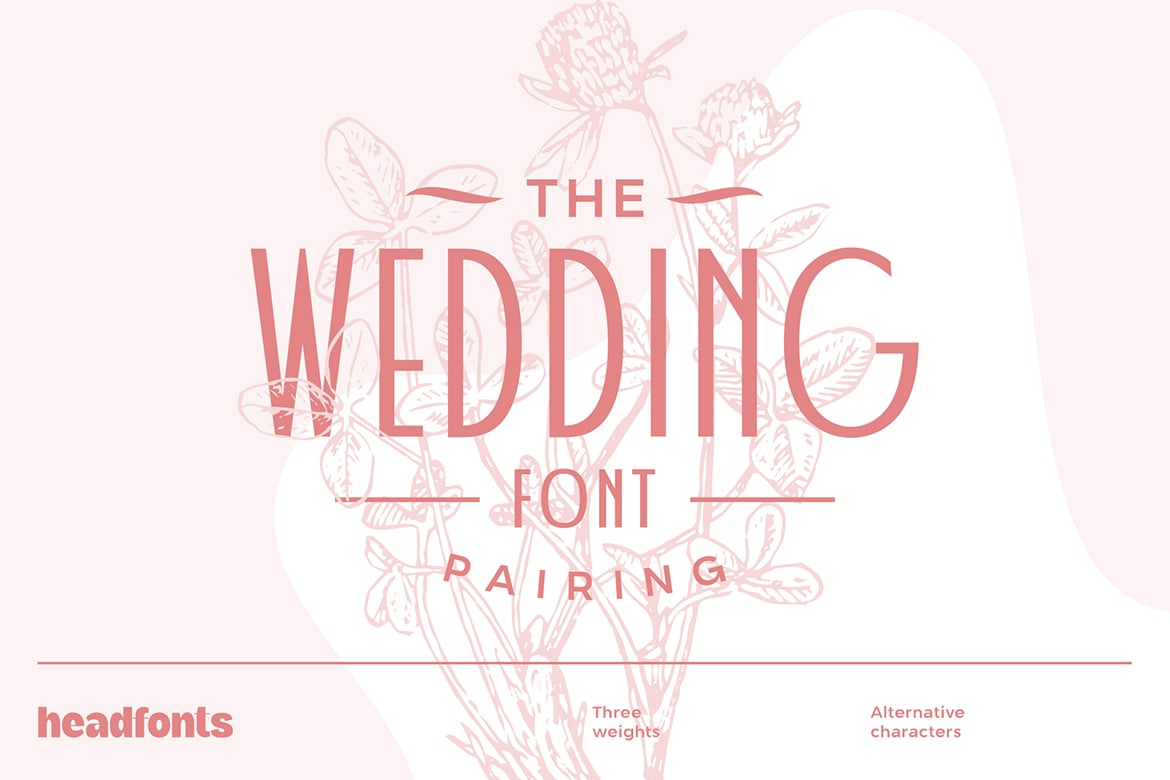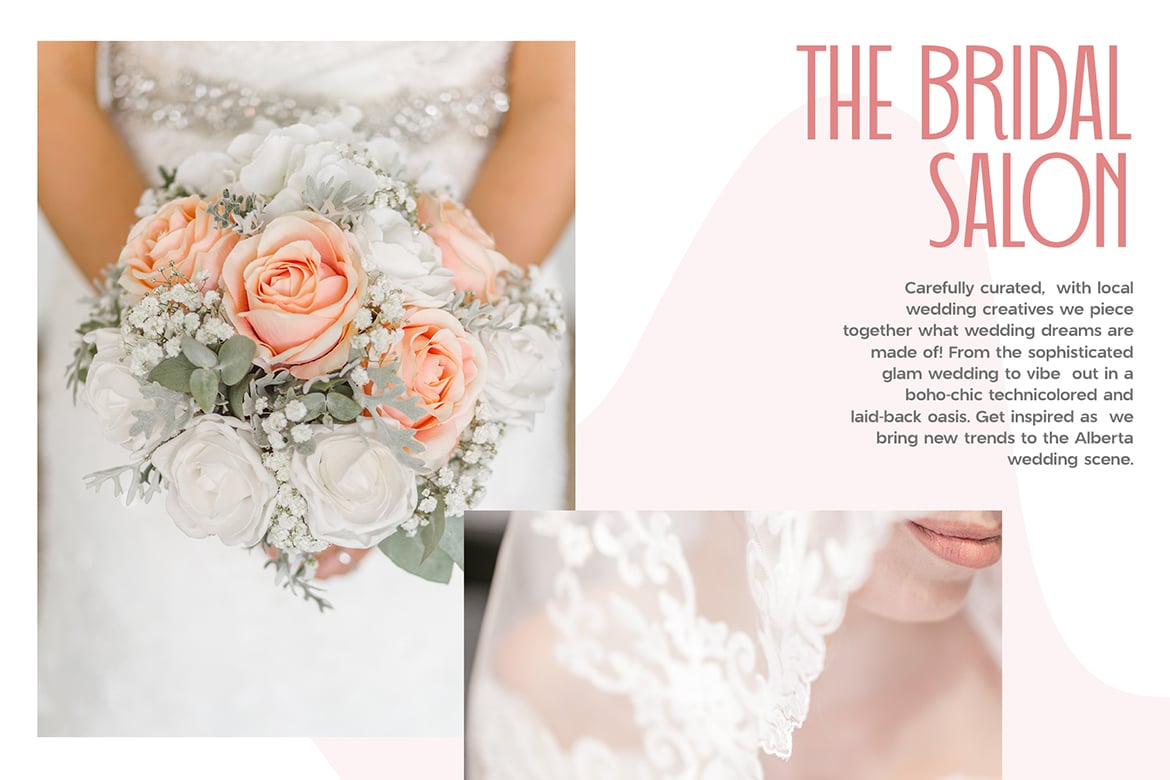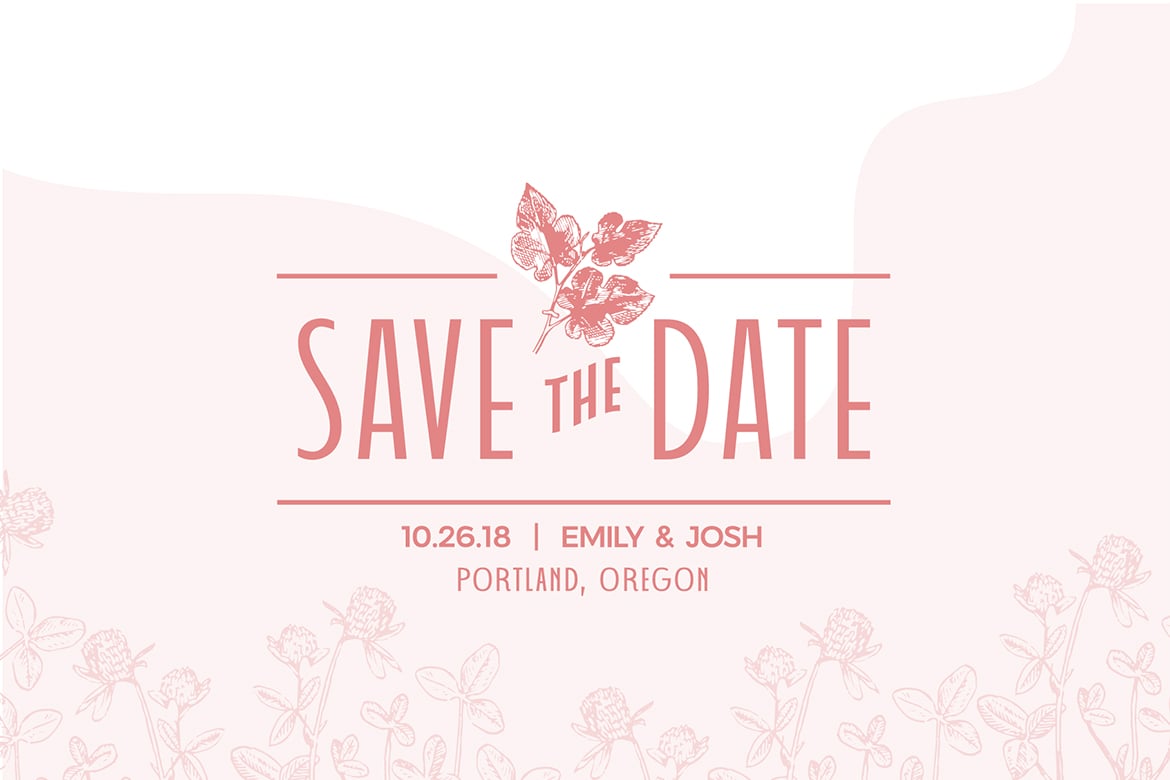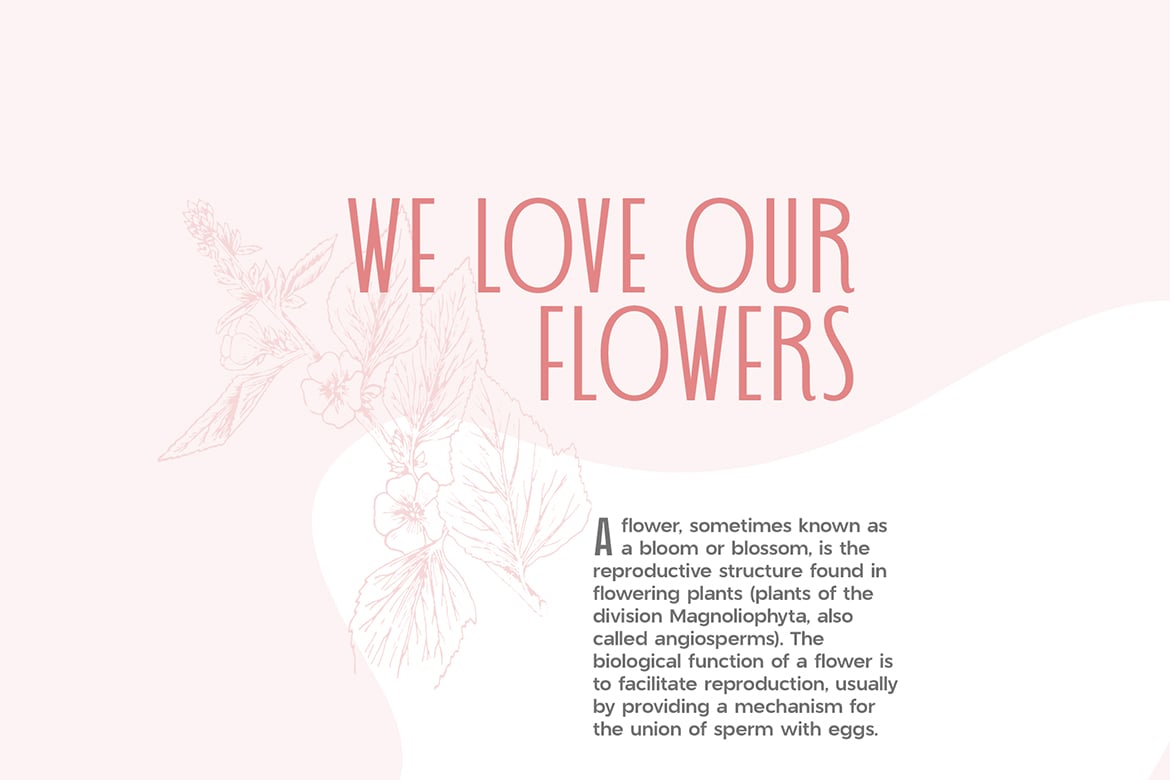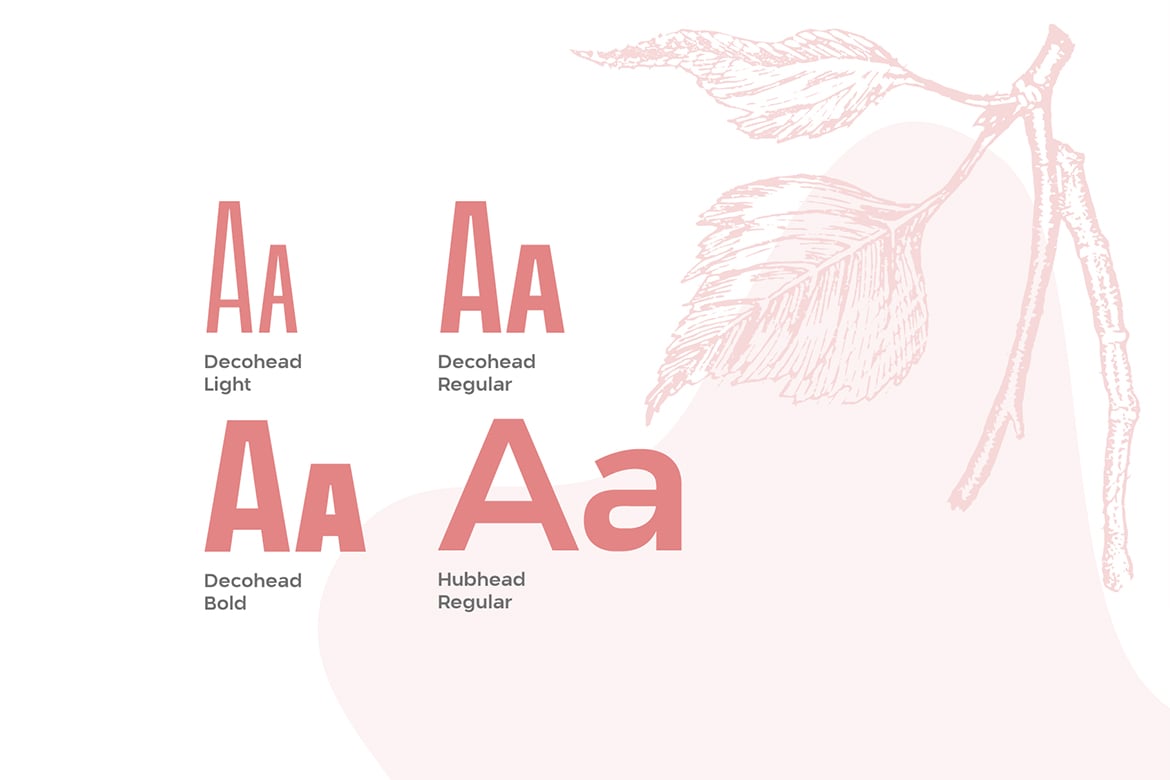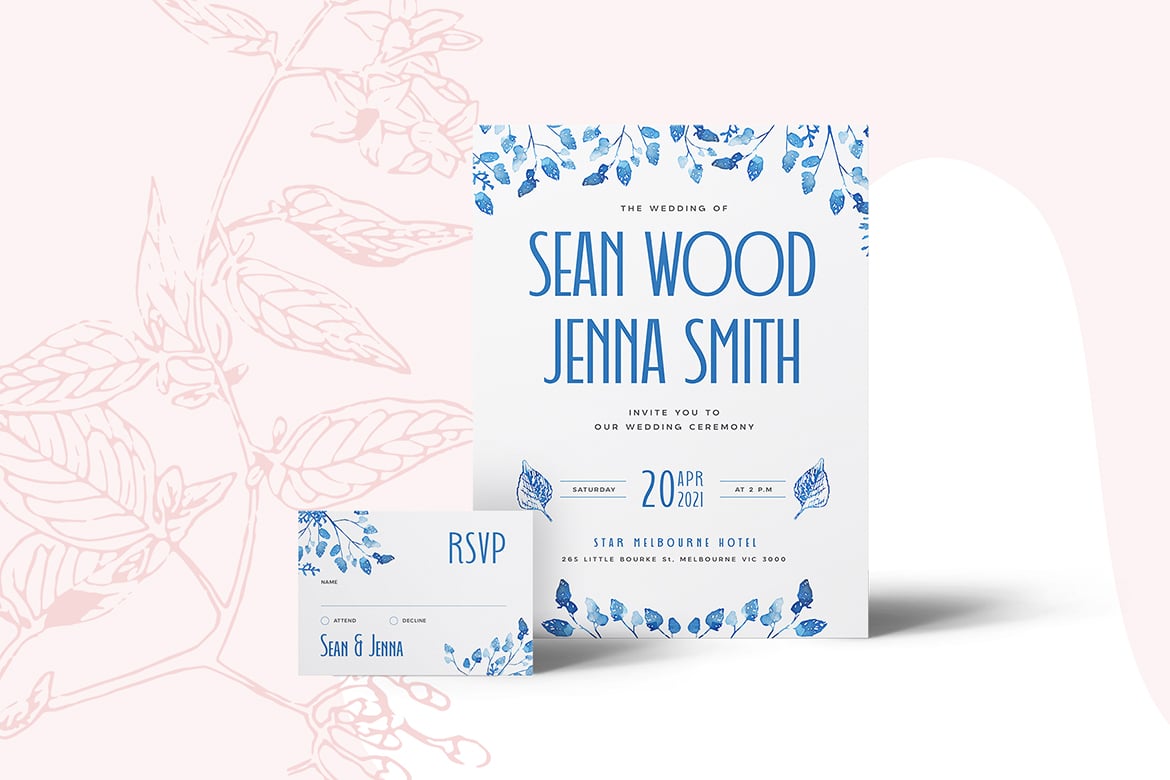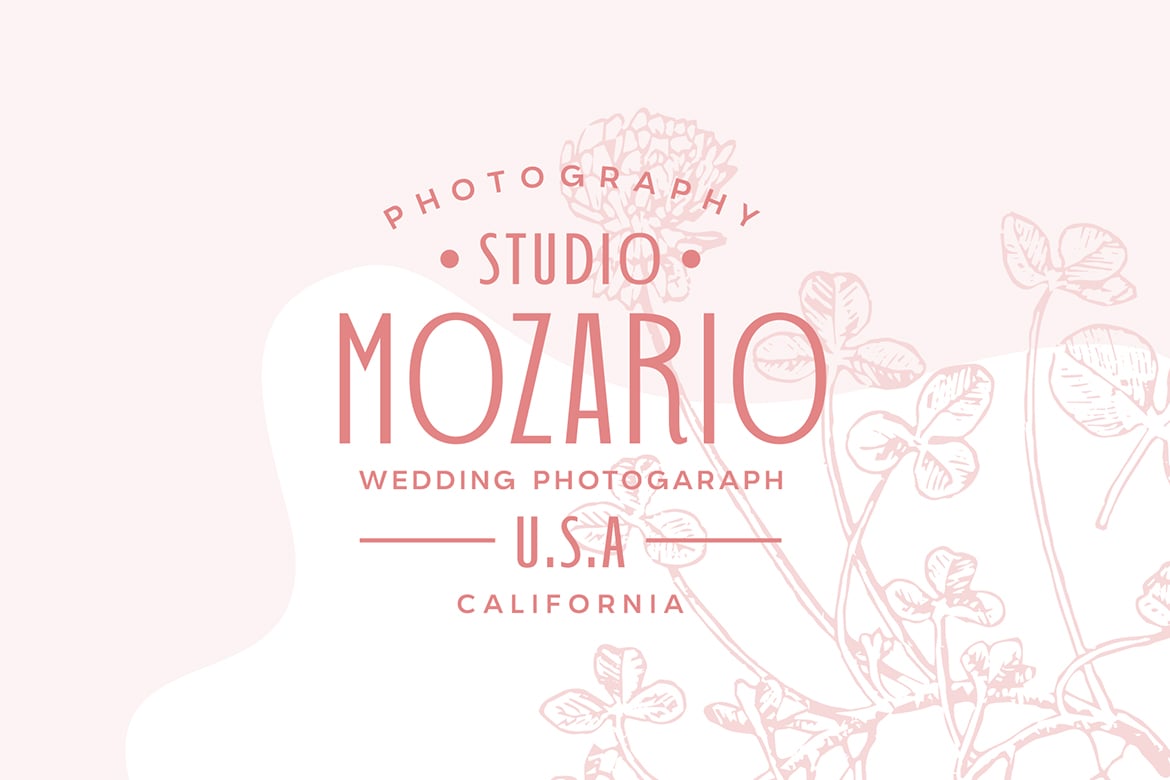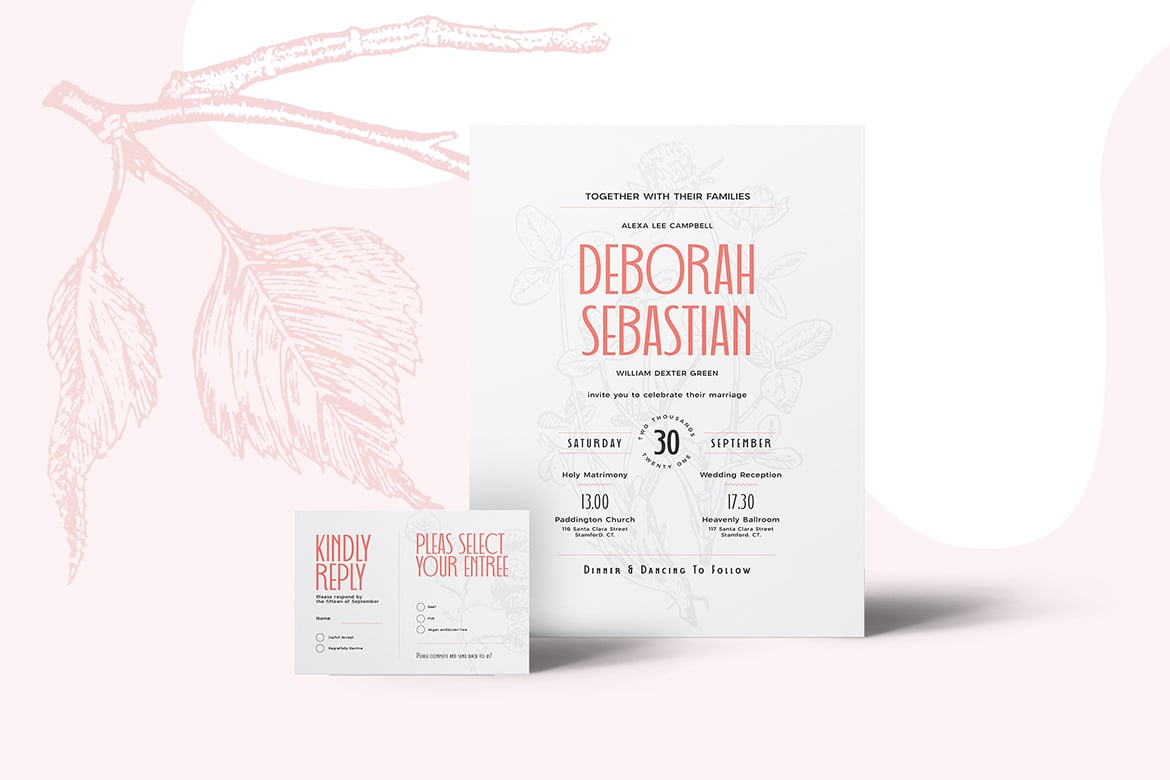
Wedding Font Pairing
Presenting the WEDDING FONT DUO,  a gorgeous pairing of two sans serif fonts that complement each other perfectly and go hand in hand to add an outstanding touch to any wedding design. This pairing of fonts is versatile and has a two faced beauty. Being a combination of a geometric, simple font, Hubhead and a modern, Art Deco inspired font, Decohead, this marvellous duo offers a typographic harmony wrapped up in flair and elegance. DECOHEAD, the first font of this beautiful pairing is an elegant and warm sans serif. With its unique, neat and delicate whisper this font can add a sophisticated twist to any design. The second one, HUBHEAD is utilitarian, clean with minimal decorative accents, a more minimal feel than his companion. Decohead has three weights, while Hubhead stands alone, as a one weight font.
Decohead has uppercase and lower uppercase characters, a number of 63 glyphs  per each weight and standard Latin script support with numerals.  Hubhead has uppercase and lowercase characters, 278 glyphs, alternative glyph for letter “a” and extensive Latin script language support.
Wedding Font Duo will provide a memorable style to your wedding related designs, such as wedding invitations, menus, labels, wedding photography logos and much more.
DECOHEAD Light
DECOHEAD Regular
DECOHEAD Bold
HUBHEAD
Upper and lower uppercase fonts